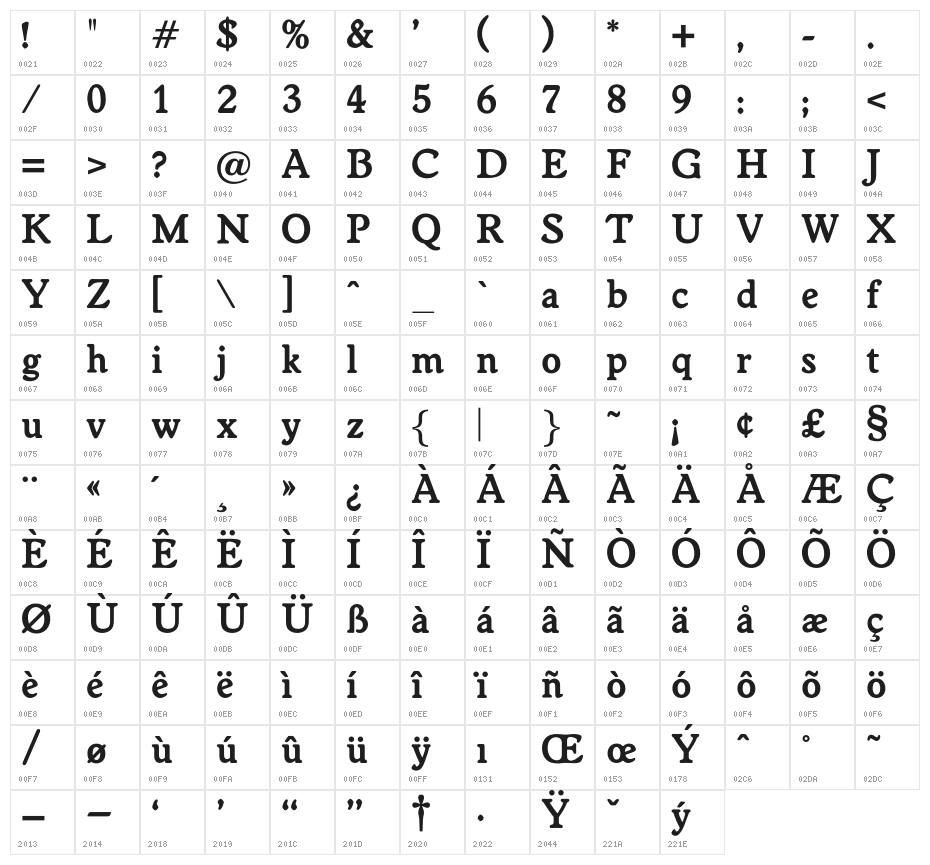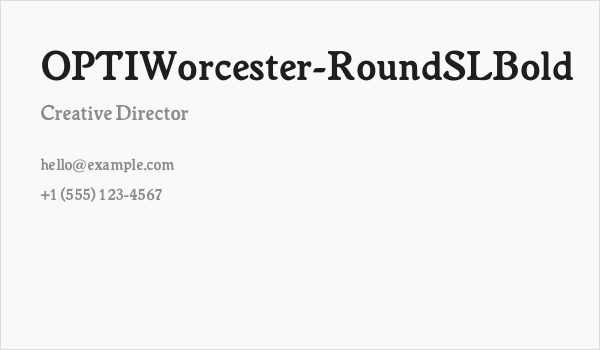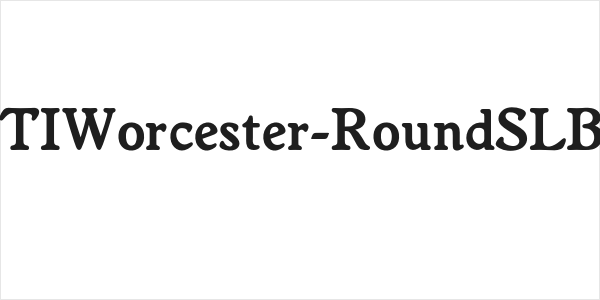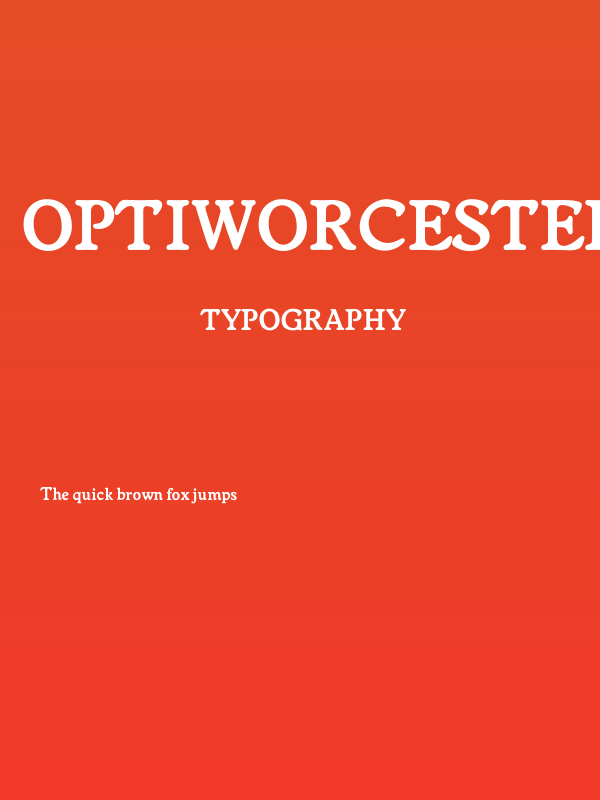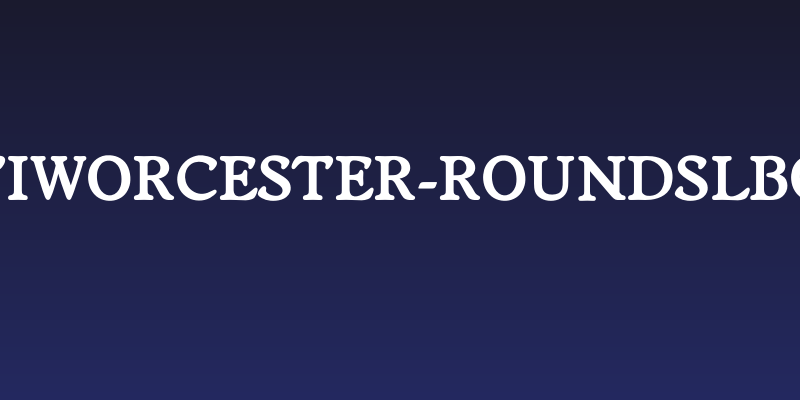
OPTIWorcester-RoundSLBold Font
OPTIWorcester-RoundSLBold Description
This font features a bold and rounded serif style, combining traditional serif elements with a modern, approachable feel. The characters are well-defined with a consistent stroke weight, providing a sense of stability and readability. The rounded edges soften the overall appearance, making it suitable for both formal and casual applications. The uppercase letters are strong and commanding, while the lowercase letters maintain a friendly and inviting look. Numerals are clear and distinct, ensuring legibility in various contexts. The special characters are crafted to match the overall aesthetic, maintaining coherence across the font set.
| Proposed Projects | Ideal for branding, headlines, packaging, and editorial design where a blend of tradition and modernity is desired. |